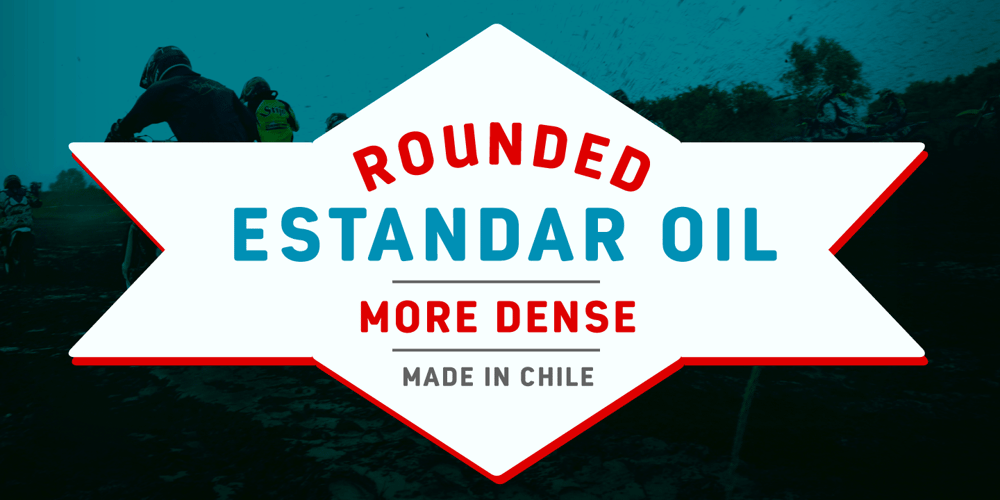
Estandar Rounded Font Family was designed by Luciano Vergara and published by Latinotype. Estandar Rounded contains 13 styles and family package options. Estandar Rounded is a retro and vintage wayfinding sans serif font, inspired by old signals in central park and Europe. It is a Condensed sans with their tall x-height. The family has 6 Weights, italics and dingbats. It is an extension of Estandar font.